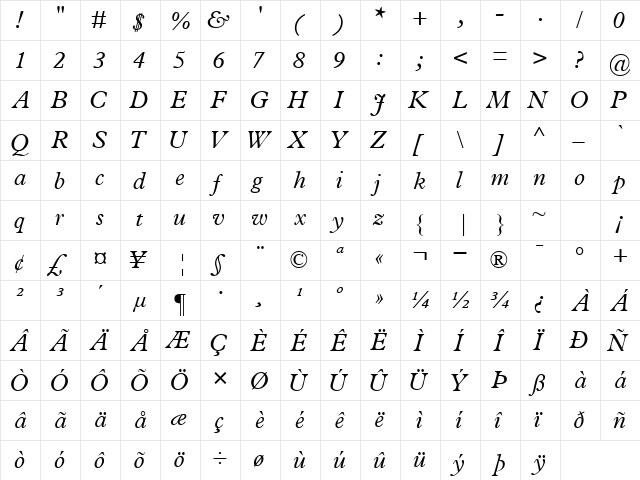
TerminusSSK Italic
Design Context for TerminusSSK Typeface
TerminusSSK is a composed and adaptable typeface that performs quietly and consistently across a wide range of design contexts. Its italic angle brings a sense of urgency and motion to the letterforms.
Pro Tip: Use TerminusSSK for emphasis, pull quotes, and subheadings where its slanted energy can add rhythm to the layout.